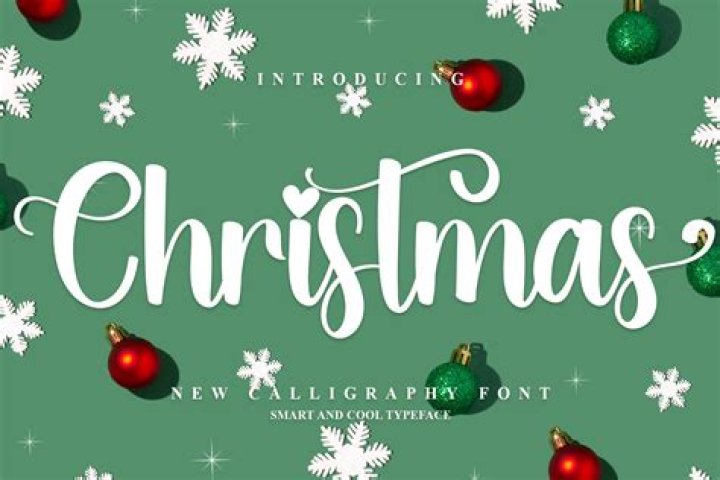
- Christmas. This font is not just for Christmas (Image credit: Crella Marketplace)
What is the Starry Night font?
One Starry Night is a fun, festive font created by Brittney Murphy Designs. Free for personal and non-profit use, it’s a swirly, handwritten font that’s guaranteed to add some sparkle to your Christmas projects.